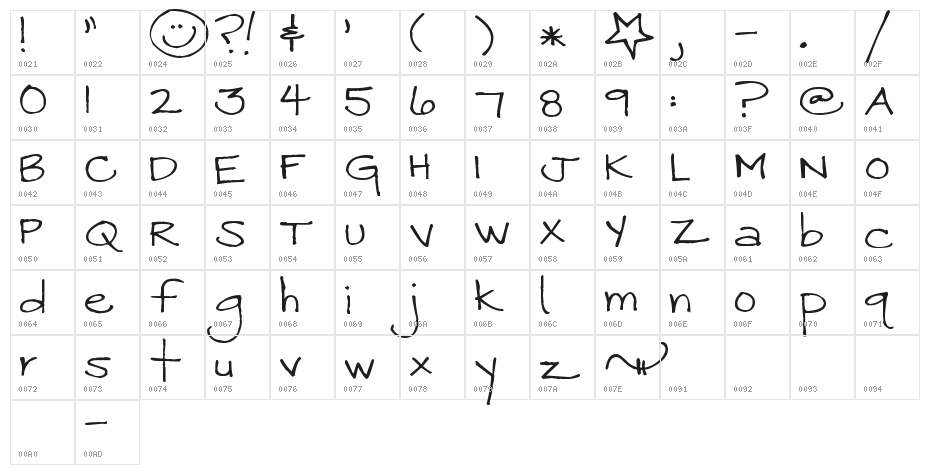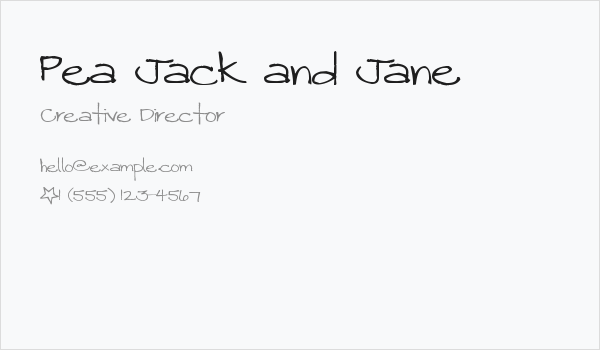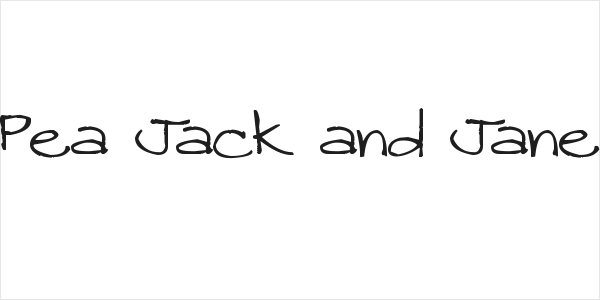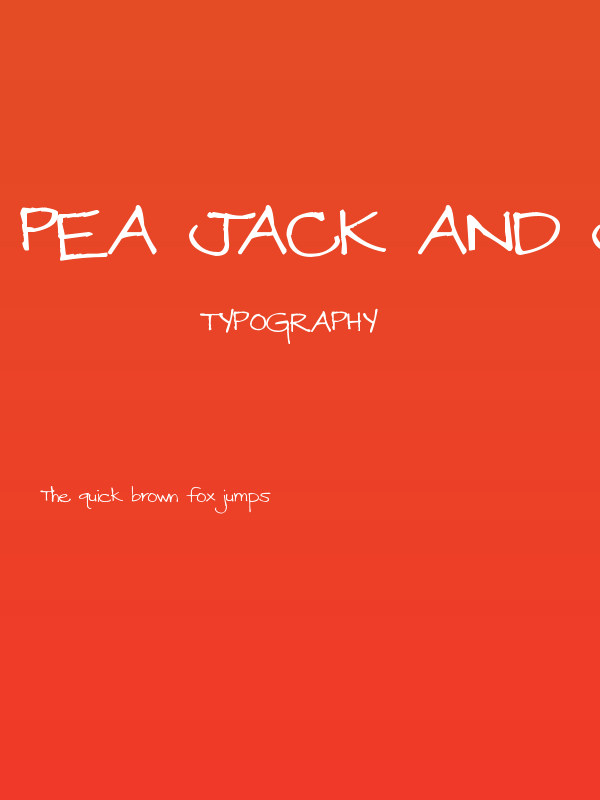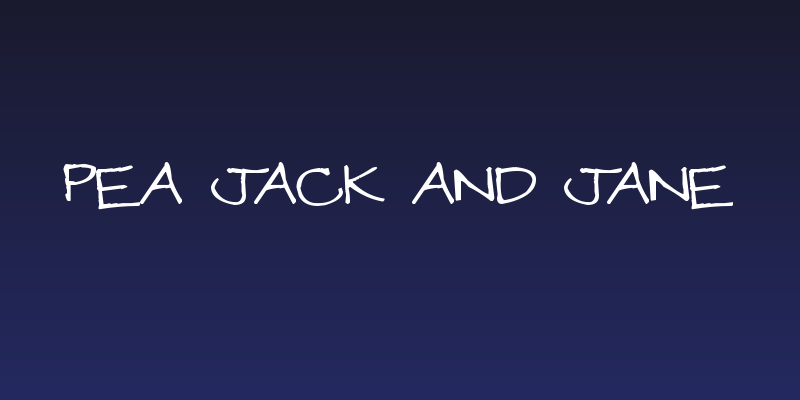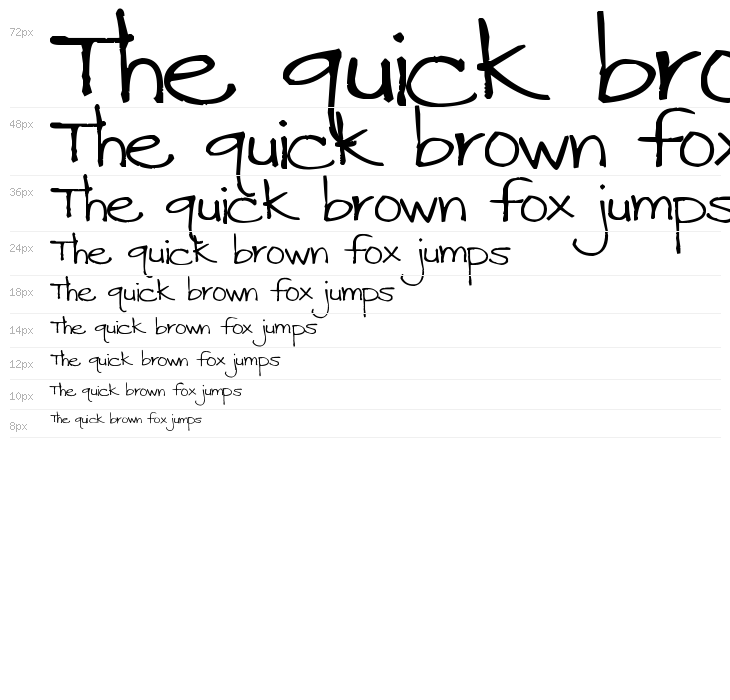
Pea Jack and Jane Font
Pea Jack and Jane Description
This font features a playful and informal handwritten style, characterized by its irregular and slightly whimsical letterforms. The strokes are uneven, giving it a casual and friendly appearance. The uppercase and lowercase letters maintain a consistent flow, with some letters having unique loops and curves that add to its charm. The numbers and special characters are crafted with the same playful touch, making them blend seamlessly with the alphabet. This font exudes a sense of spontaneity and creativity, making it ideal for projects that require a personal and approachable feel.
Overall StyleCasual
Use CaseHeadlines, Informal text, Creative projects
Proposed ProjectsIdeal for greeting cards, children's books, casual invitations, and personal blogs.